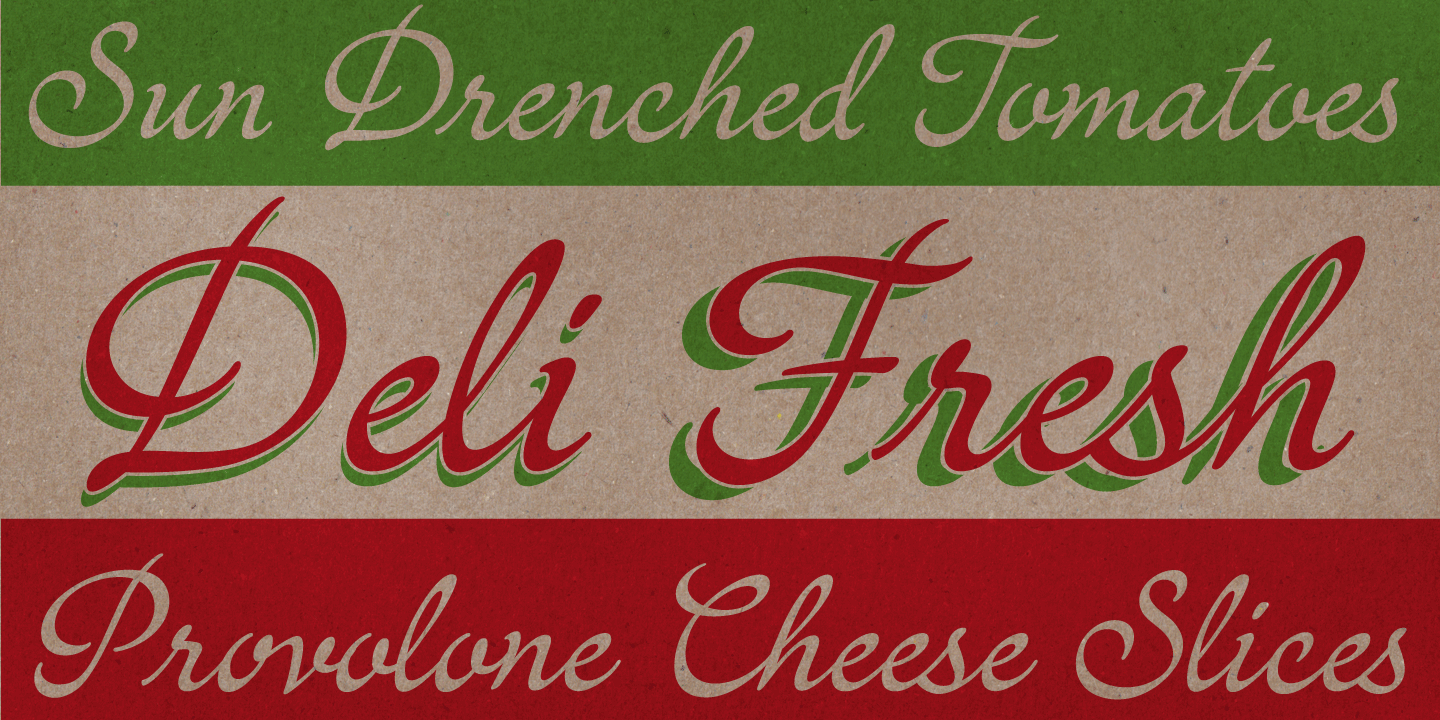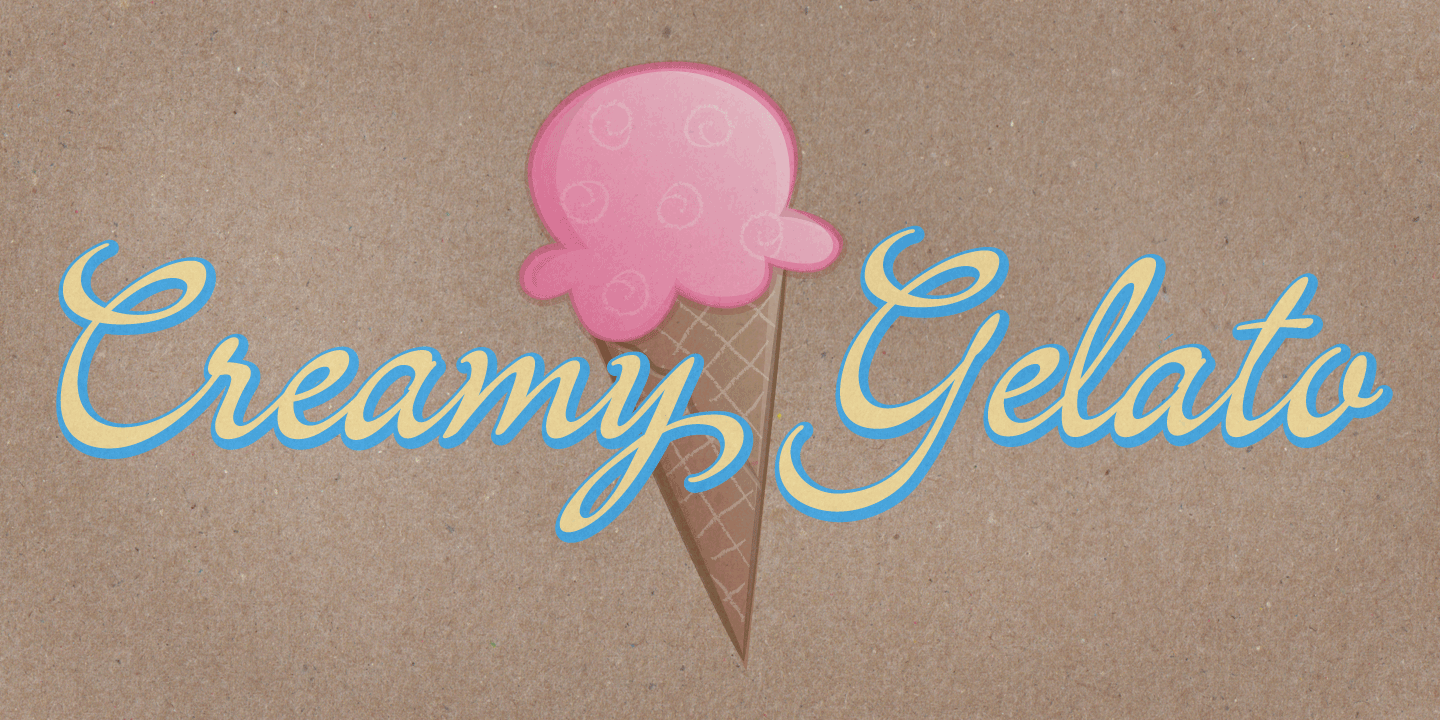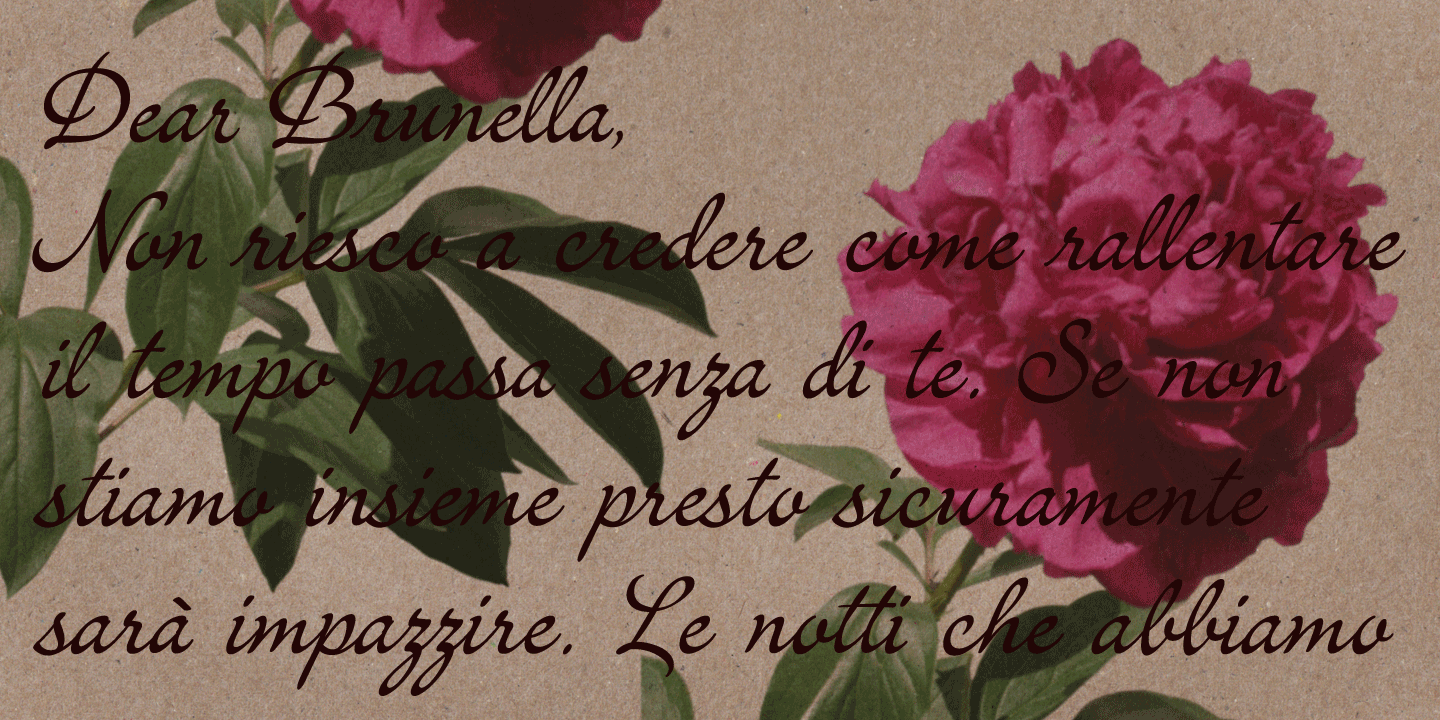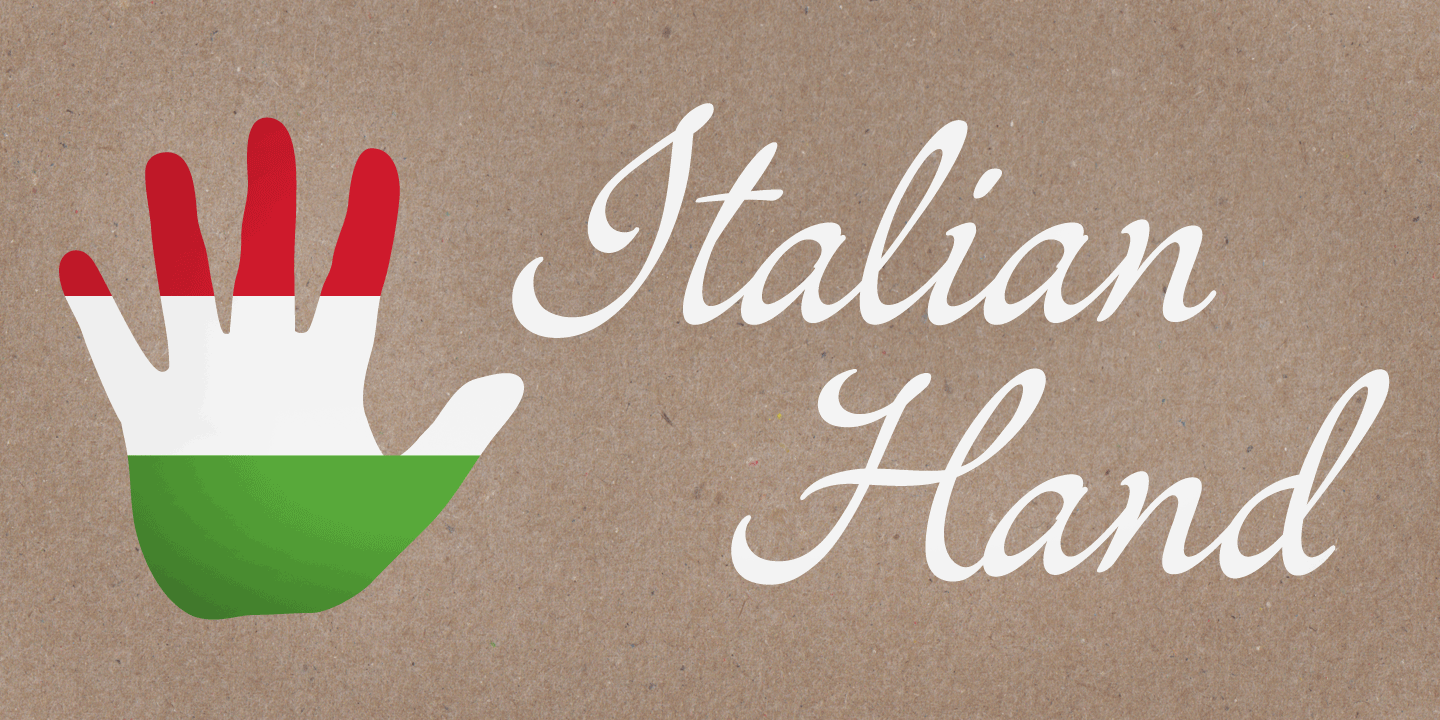
Italian Hand
Font Family by Jess Latham
Inspired by a broad-edge calligraphy pen, Italian Hand was developed off and on between 2007-2010. Each time I came back to the design I saw things with fresh eyes and that helped it evolve tremendously.
A hundred or more pages of hand written letters and many dried up pens later the design is complete. I?m very pleased with how it came together and I hope you will find as much joy using it in your designs as I had creating it. I?m sure you will find this typeface very useful in all manner of projects.